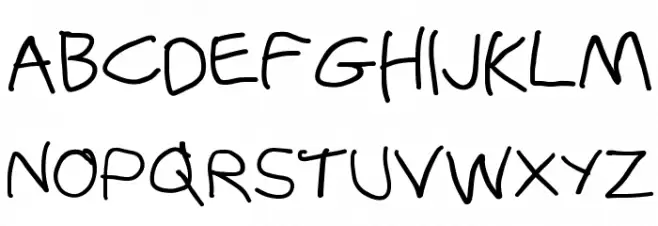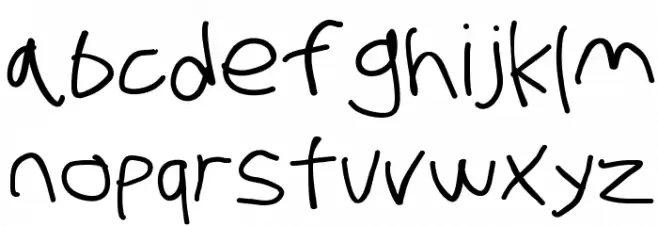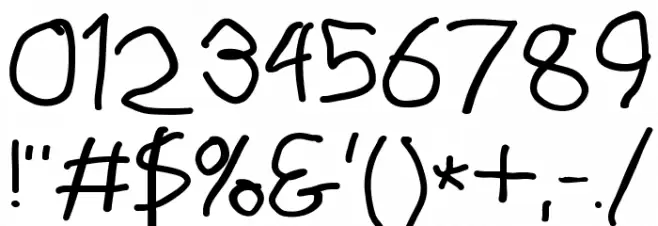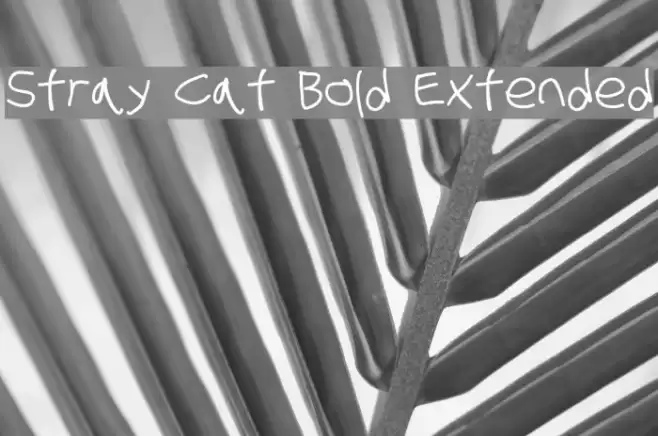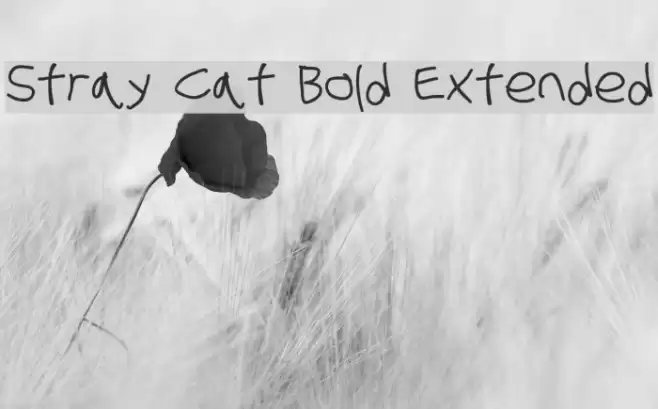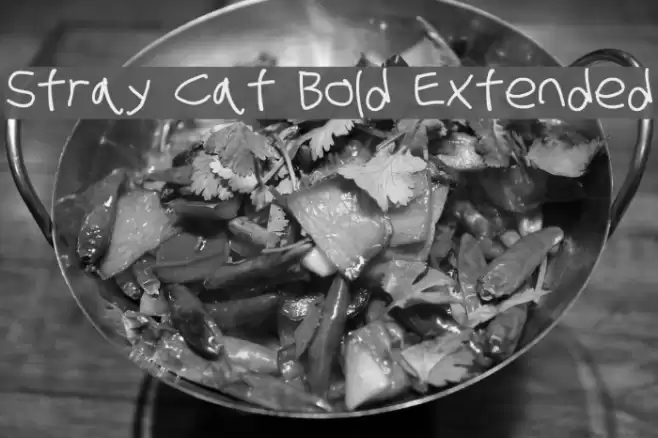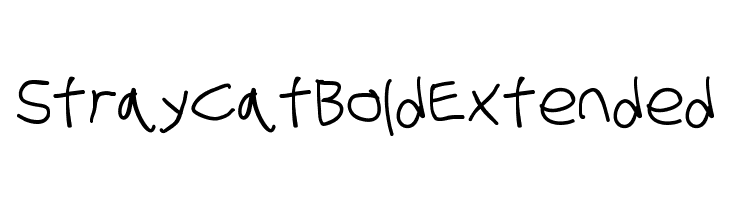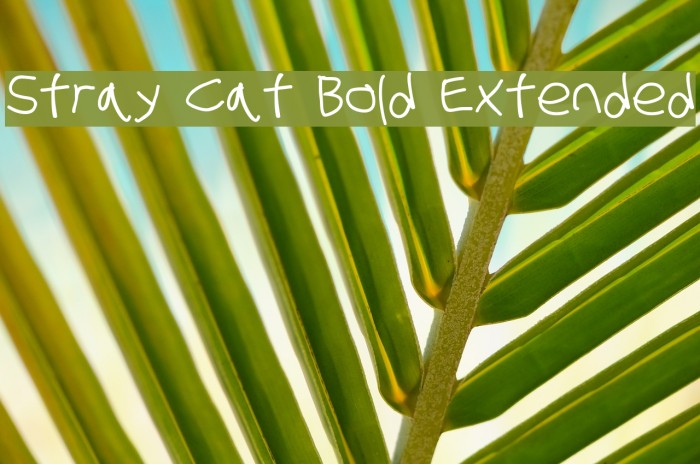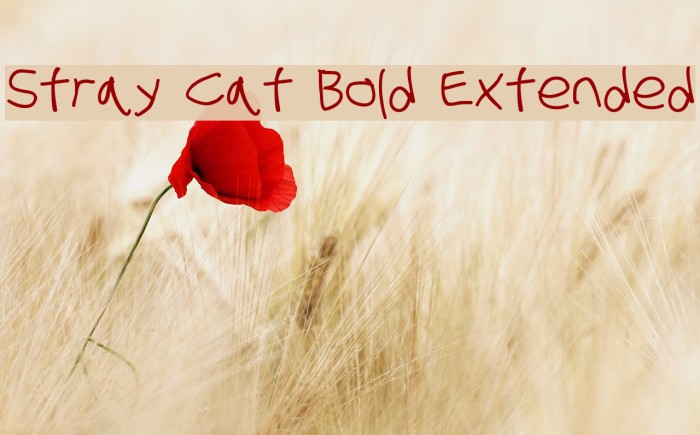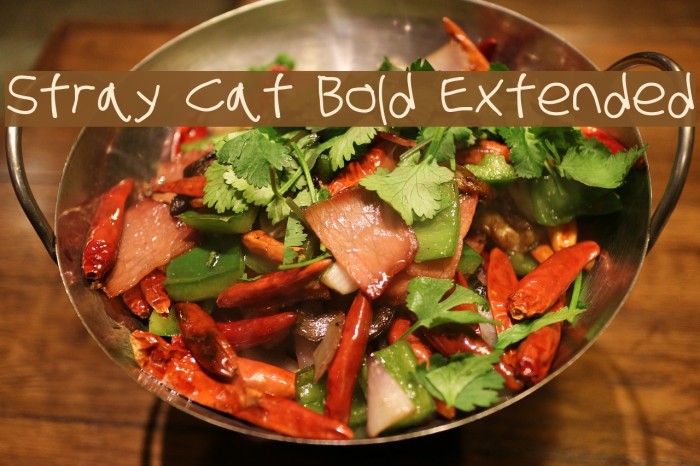
Stray Cat Bold Extended
This font features a playful and casual handwritten style, characterized by its bold and extended letterforms. The strokes are uneven, giving it a dynamic and lively appearance. The uppercase and lowercase letters maintain a consistent flow, while the numerals and special characters complement the overall aesthetic. The font's informal nature makes it suitable for projects that require a personal touch or a sense of whimsy. Its boldness ensures readability, while the extended width adds a unique flair to the design.
A bold, extended handwritten font with a playful and casual style.
- Proposed Projects: Ideal for children's books, greeting cards, playful branding, and informal invitations.
- Width: Expanded
- Overall Style: Casual
- Use Case: Headlines, Logos, Informal Text